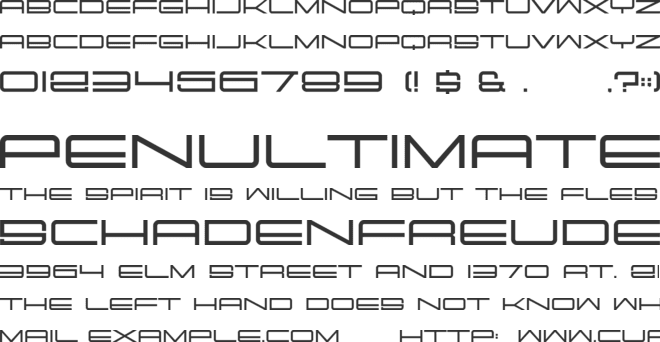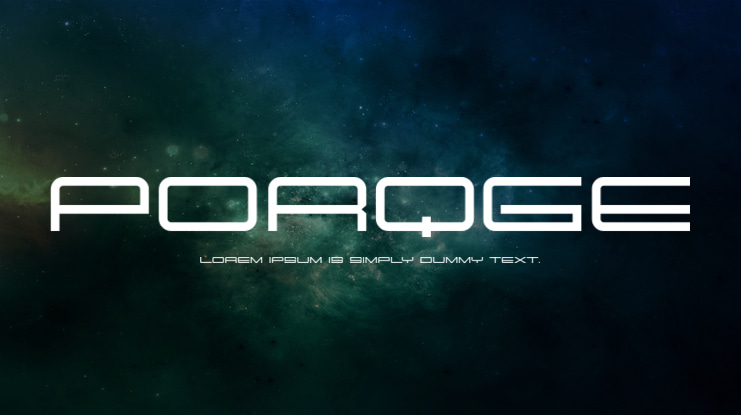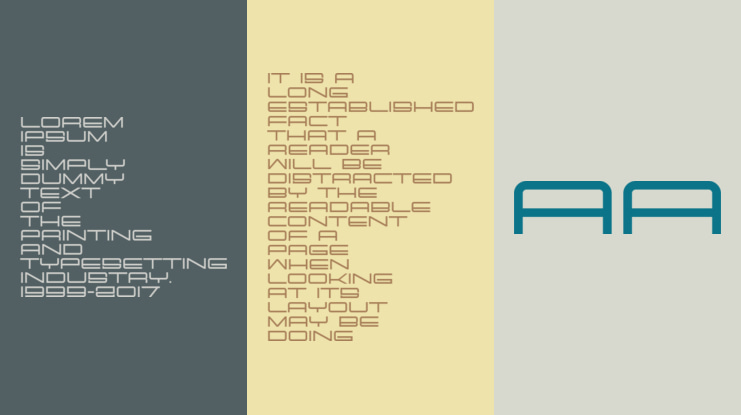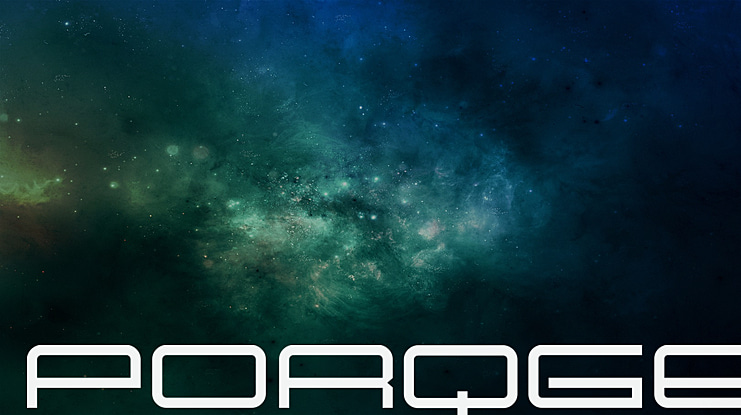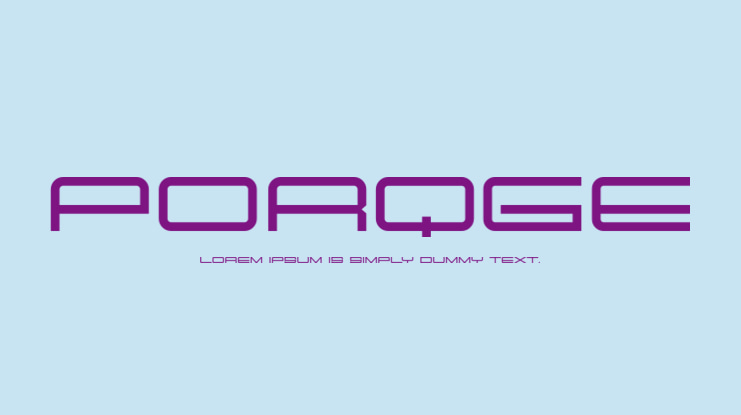
Porqge Font
This is a stylish font inspired by hi-fi elements combined with square forms and straight lines. It also has the features of Constructivism, including solidity, emphasis on geometric shapes, and austerity. This font is perfect for any branding project such as logos, t-shirt printing, creative products, and more. extraordinary in a variety of contexts.